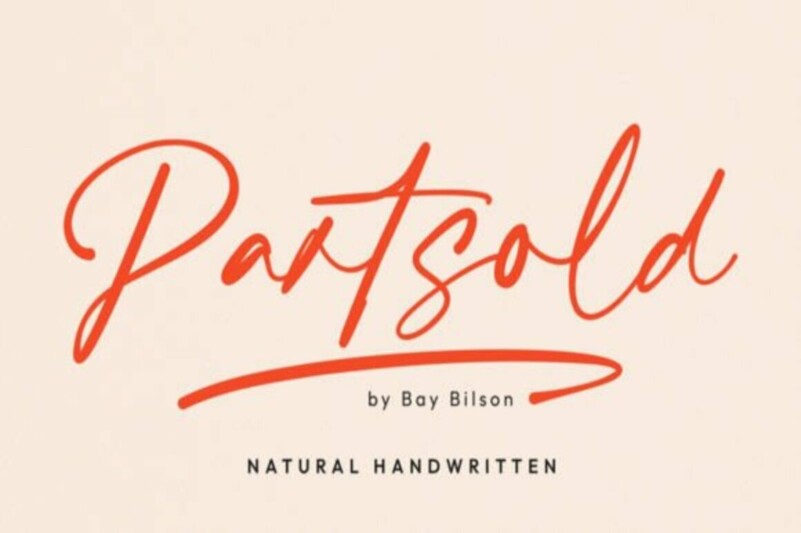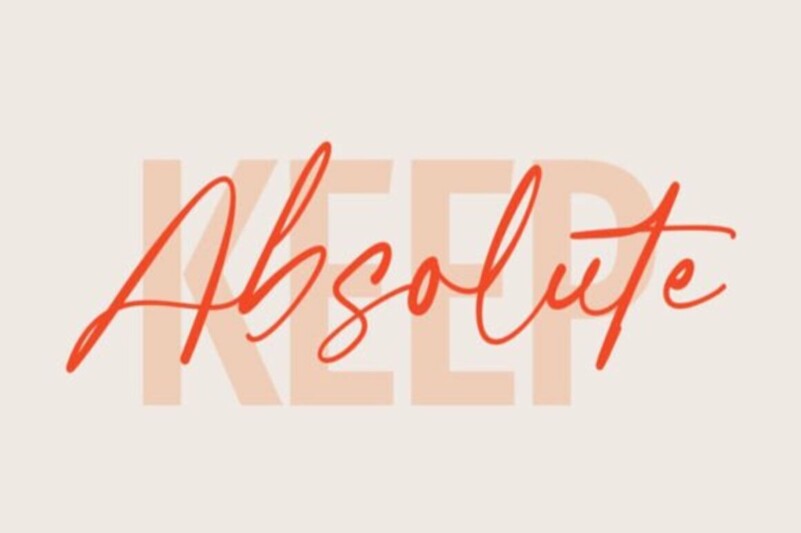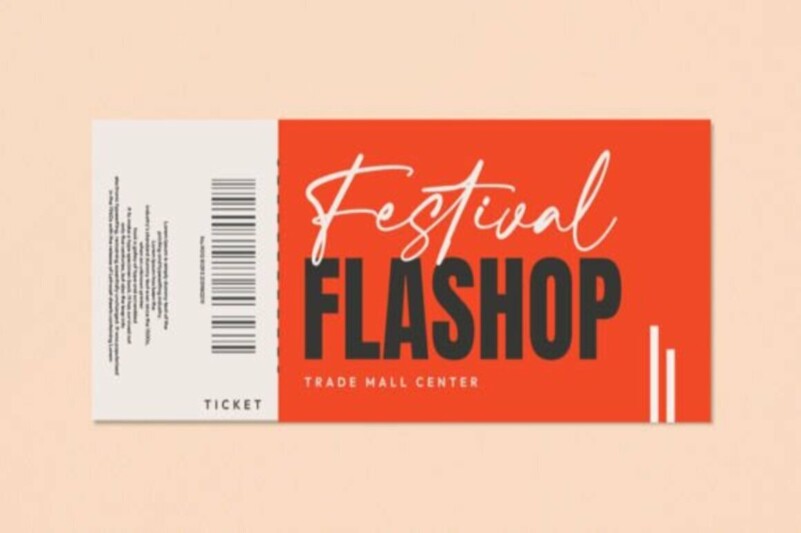
Partsold Font
Partsold FontPartsold is a modern styled font designed to be natural and organic. Designed for brand logos or in collaboration with sans or serif style fonts